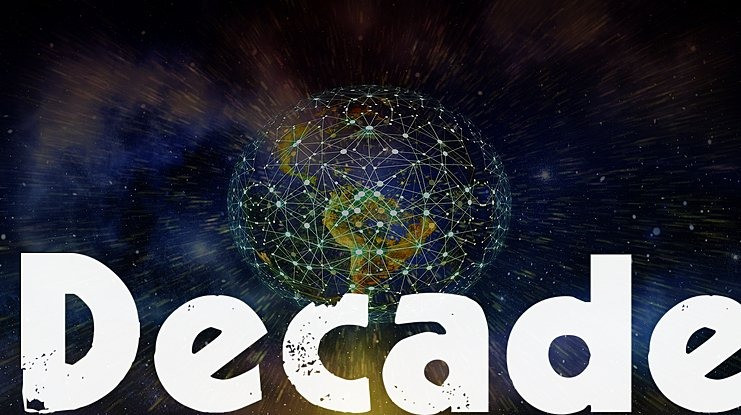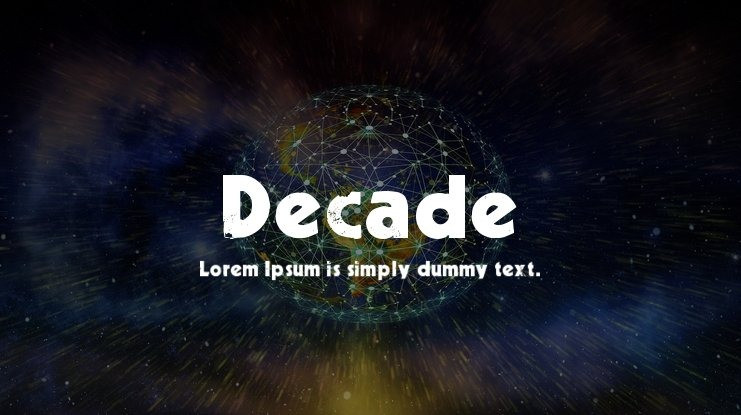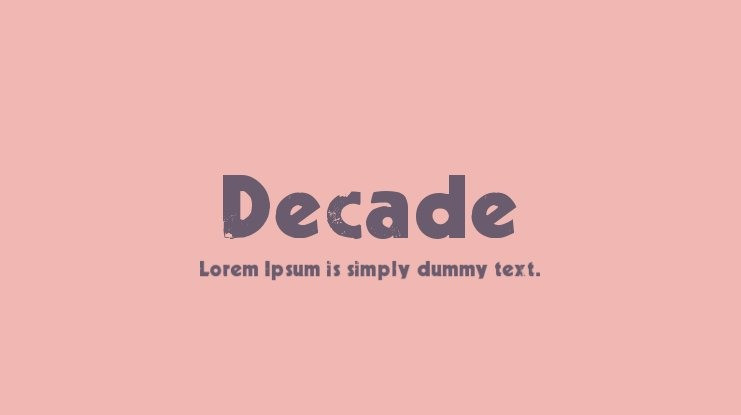
Decade Font
Decade Font Free, Its optimum legibility, clean, and geometric look is perfect branding, brochures, greeting cards, quotes, posters, stationary, design titles, blog headers, and much more.